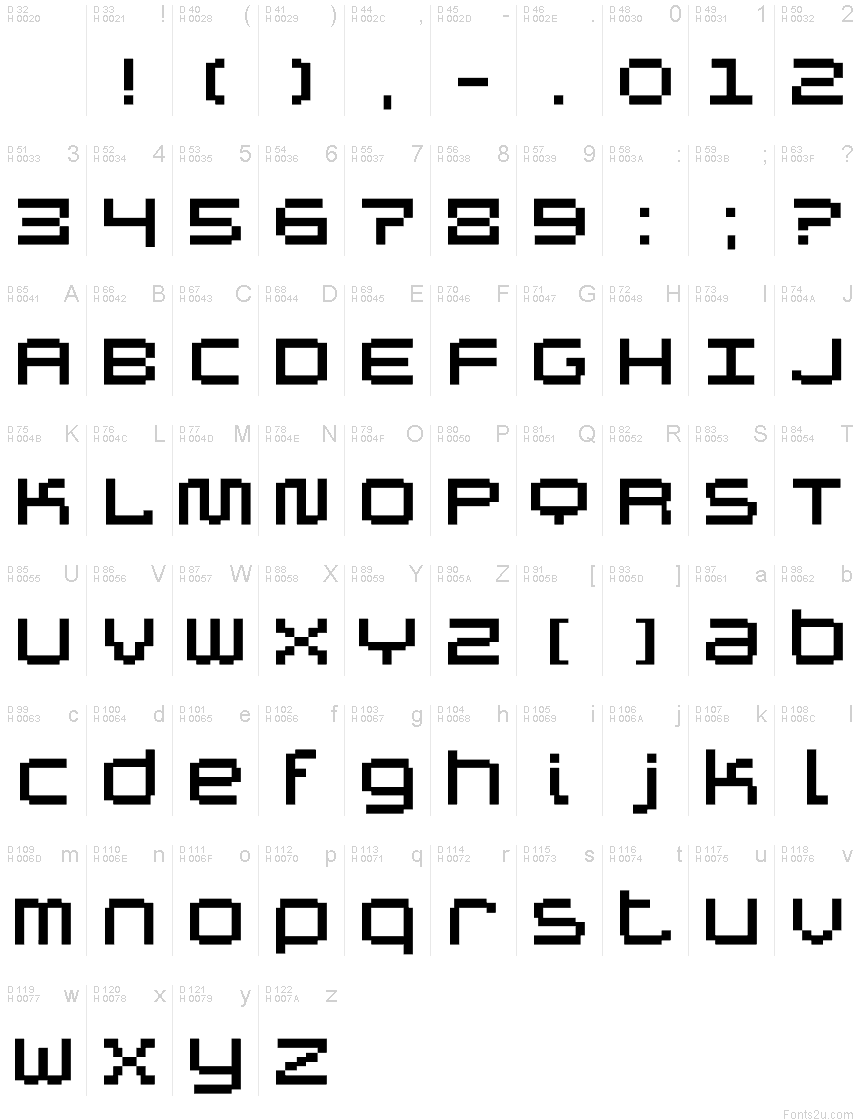
Autriche ALT
Autriche ALT font uses blocky, squared curves and tight spacing to create a strong, tech-forward wordmark feel. Its monoline strokes and modular letter shapes make it ideal as a free font for bold headlines where you want a futuristic but still readable look, especially in short words or names.
This free font works well for esports logos, sci‑fi game titles, electronic music covers, tech event posters, UI headers, and striking social media graphics. Use Autriche ALT in larger sizes to let the angular details shine, and pair it with a simple neutral sans serif for supporting text.